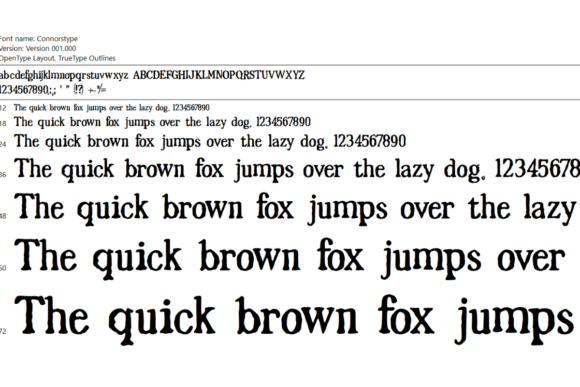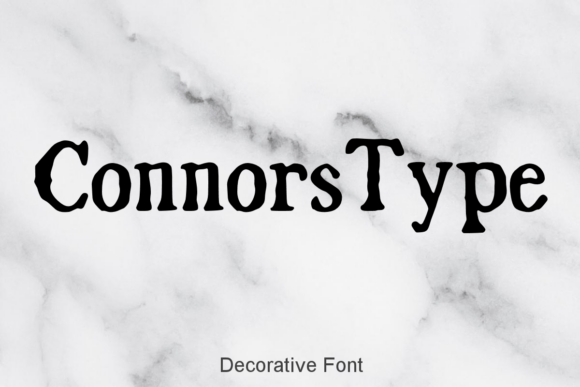
Introducing ConnorsType: The Whimsical Typewriter-Inspired Font for the Modern Designer
In the world of typography, few fonts manage to strike a balance between playfulness and sophistication. However, ConnorsType, a charming typewriter-inspired font, achieves just that. With its unique blend of refined elegance and whimsical charm, ConnorsType is the perfect addition to any design project that demands a touch of personality without sacrificing sophistication.
The Story Behind ConnorsType
ConnorsType is more than just a font – it’s a statement piece. Inspired by the classic typewriters of yesteryear, this font brings a sense of nostalgia and timelessness to any design project. Its creator, with a keen eye for detail and a deep understanding of typographic history, has meticulously crafted ConnorsType to evoke the feeling of a bygone era, while still feeling refreshingly modern.
What Makes ConnorsType Stand Out
• Unique Playful Aesthetic: ConnorsType boasts a playful aesthetic that cleverly balances informality and sophistication. Its characters are designed to mimic the imperfections of a typewriter, giving it a distinctly human feel.
• Timeless Charm: The font’s typewriter-inspired design lends it a timeless charm that works well for a variety of design projects, from vintage-themed posters to modern digital interfaces.
• Elegance and Whimsy: ConnorsType walks the fine line between elegance and whimsy, making it an ideal choice for designers looking to add a dash of personality to their work without overwhelming the senses.
• Versatility: Whether you’re working on a branding project, a website, or a print design, ConnorsType’s versatility shines through. It can be used for headings, body text, or even as a display font for maximum impact.
ConnorsType is not just a font; it’s a tool for creative expression. For designers and crafters looking to infuse their projects with a bit of character and charm, this font offers endless possibilities. Here are a few ways you can use ConnorsType to elevate your designs:
• Branding and Logos: Use ConnorsType to create memorable and distinctive brand identities that stand out from the crowd.
• Web Design: Add a touch of whimsy and elegance to your website’s typography, making it more engaging and user-friendly.
• Print Materials: From business cards to posters and flyers, ConnorsType can add a unique and professional touch to your print designs.
• Digital Art and Illustration: Use ConnorsType as a creative element in your digital art, adding text that complements your illustrations and enhances their storytelling.
Why Choose ConnorsType?
In a sea of fonts, ConnorsType stands out for its unique blend of vintage charm and modern chic. Here are a few reasons why designers and crafters are choosing ConnorsType:
• Unique Character: ConnorsType offers a distinctive look that can help your designs stand out.
• High Versatility: The font’s adaptability makes it suitable for a wide range of projects and applications.
ConnorsType is more than just a font – it’s a gateway to creating designs that are both visually stunning and emotionally resonant. With its perfect blend of timeless typewriter charm and modern chic, ConnorsType offers designers and crafters a unique tool for bringing their creative visions to life. Whether you’re looking to add a touch of whimsy, inject some elegance, or simply stand out from the crowd, ConnorsType is the ideal choice for your next design project.
Experience the perfect blend of timeless typewriter charm and modern chic with ConnorsType. Elevate your designs, tell your story, and make your mark with this whimsical yet sophisticated typewriter-inspired font.